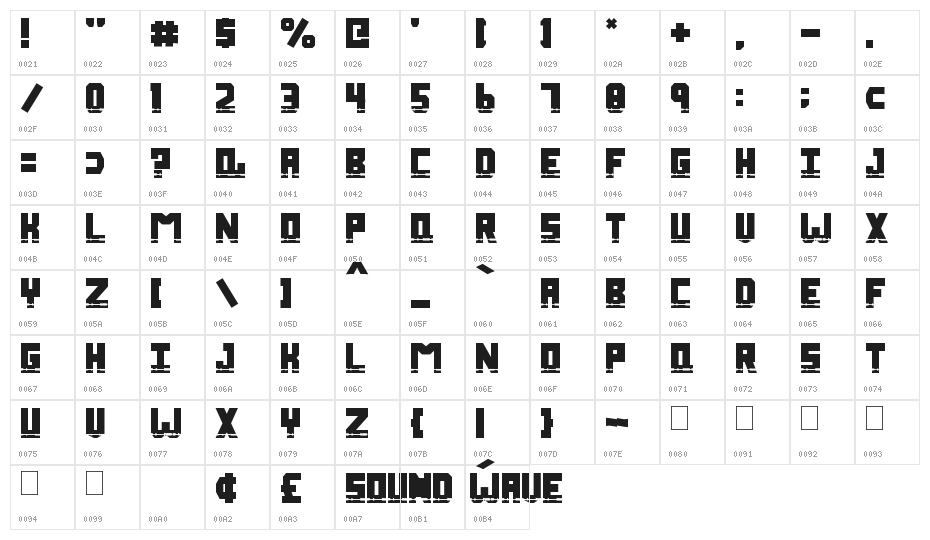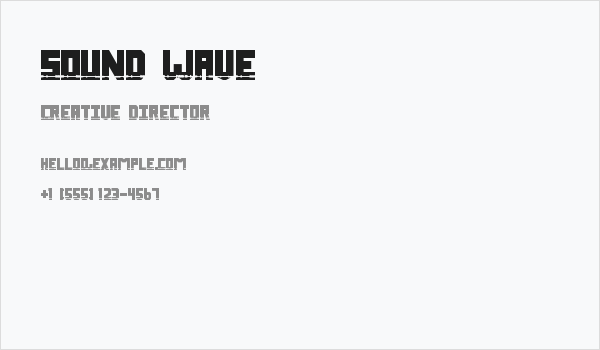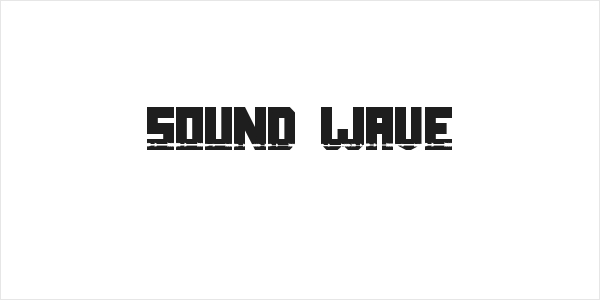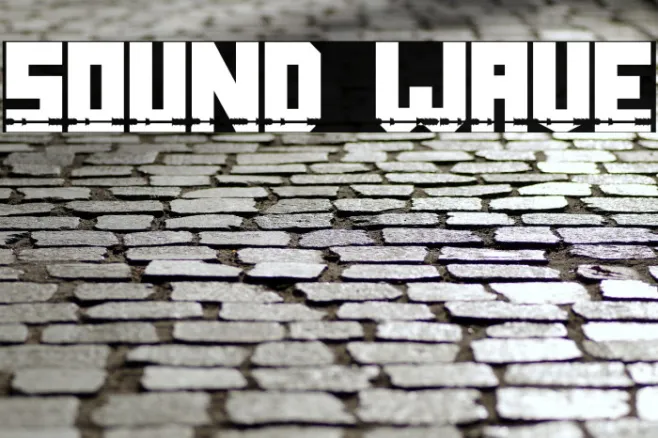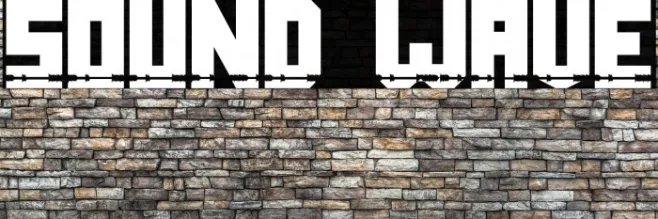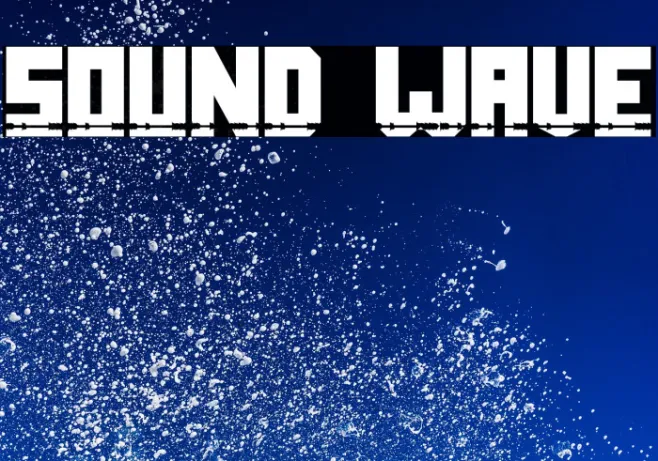
Sound Wave Font
Sound Wave Description
This font features a bold, geometric design with a distinctive digital glitch effect that runs horizontally through each character. The uppercase and lowercase letters maintain a consistent blocky structure, giving the typeface a strong, impactful presence. The numbers and special characters follow the same stylistic approach, ensuring uniformity across all glyphs. The unique glitch effect adds a modern, edgy twist, making it suitable for contemporary designs. The font's boldness and unique style make it stand out, perfect for projects that require a strong visual impact.
| Proposed Projects | Ideal for digital art, music album covers, video game graphics, and tech-related branding. |